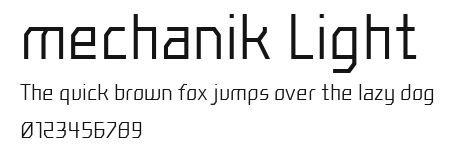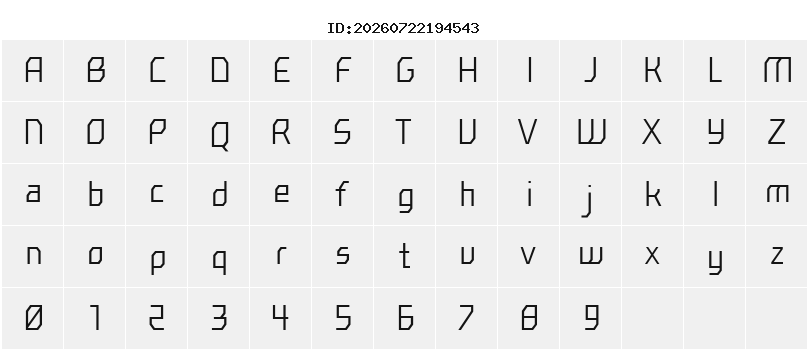
mechanik Light Preview
• Font Name: mechanik Light
• Font Style: Light
• Designer: przemek hoffer
About mechanik Light.ttf
mechanik Light.ttf is a modern, elegant sans-serif font designed for ultimate readability and visual harmony. Perfect for branding, headlines, web design, and print materials.